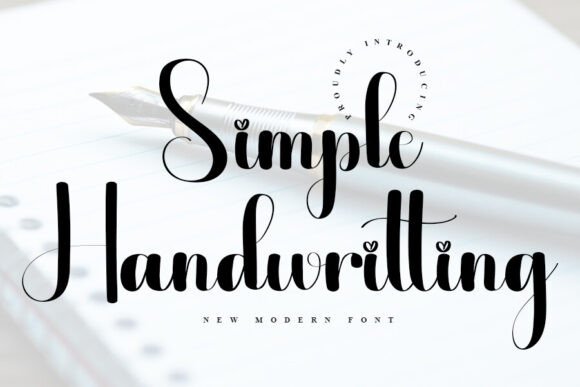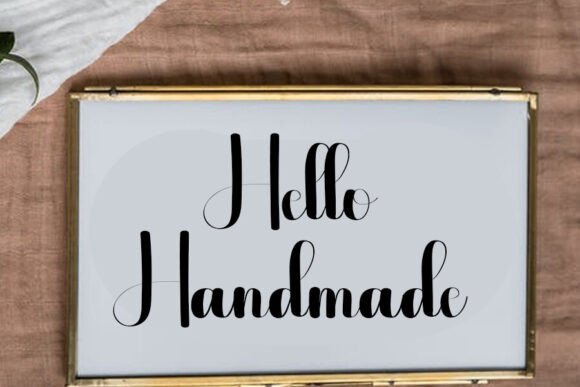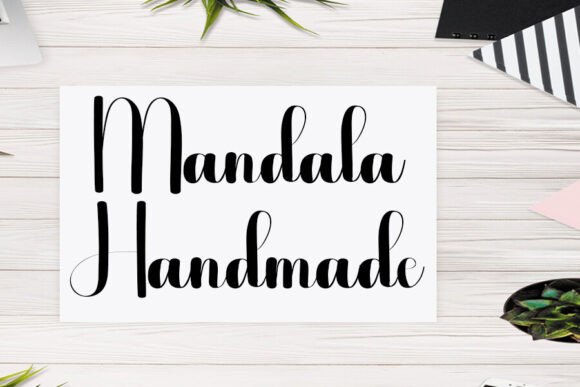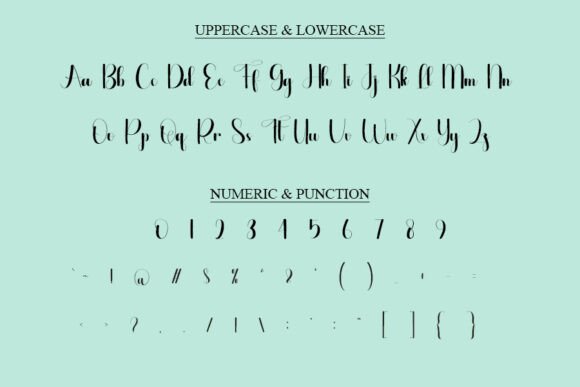
Simple Handwritting Font
Infuse your creative endeavors with the Simple Handwriting font. Its effortless charm and distinct style make it a perfect choice for a range of design needs such as captivating YouTube banners, attention-grabbing logo mockups, enchanting wedding invitations, professional ID cards, innovative flyers, and intricate crafts. Utilizing the Simple Handwriting font in your projects will not only elevate their aesthetic but also contribute to your business’s growth and development. However, its most exceptional feature remains its simplicity and uniqueness that sets it apart, brilliantly combining the allure of hand-drawn script with professional design.